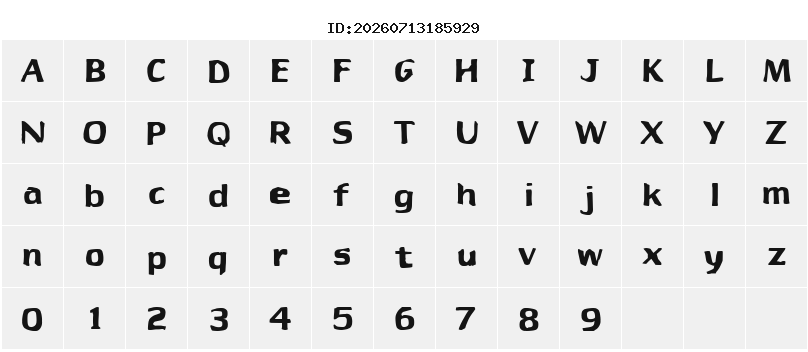
Babylon 27 Preview
• Font Name: Babylon 27
• Font Style: Babylon 27
• Font ID: Babylon 27
• Full Font Name: Babylon 27
• PostScript Name: Babylon 27
• Character Count: 151
• Designer: Yankosoft Corporation
• Manufacturer: Yankosoft Typography
About Babylon 27.ttf
Babylon 27.ttf is a modern, elegant sans-serif font designed for ultimate readability and visual harmony. Perfect for branding, headlines, web design, and print materials.